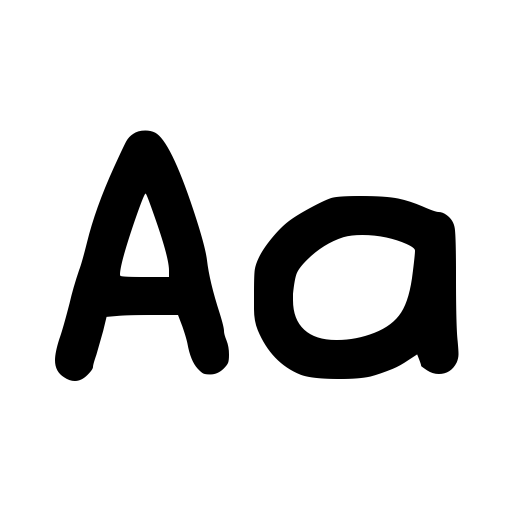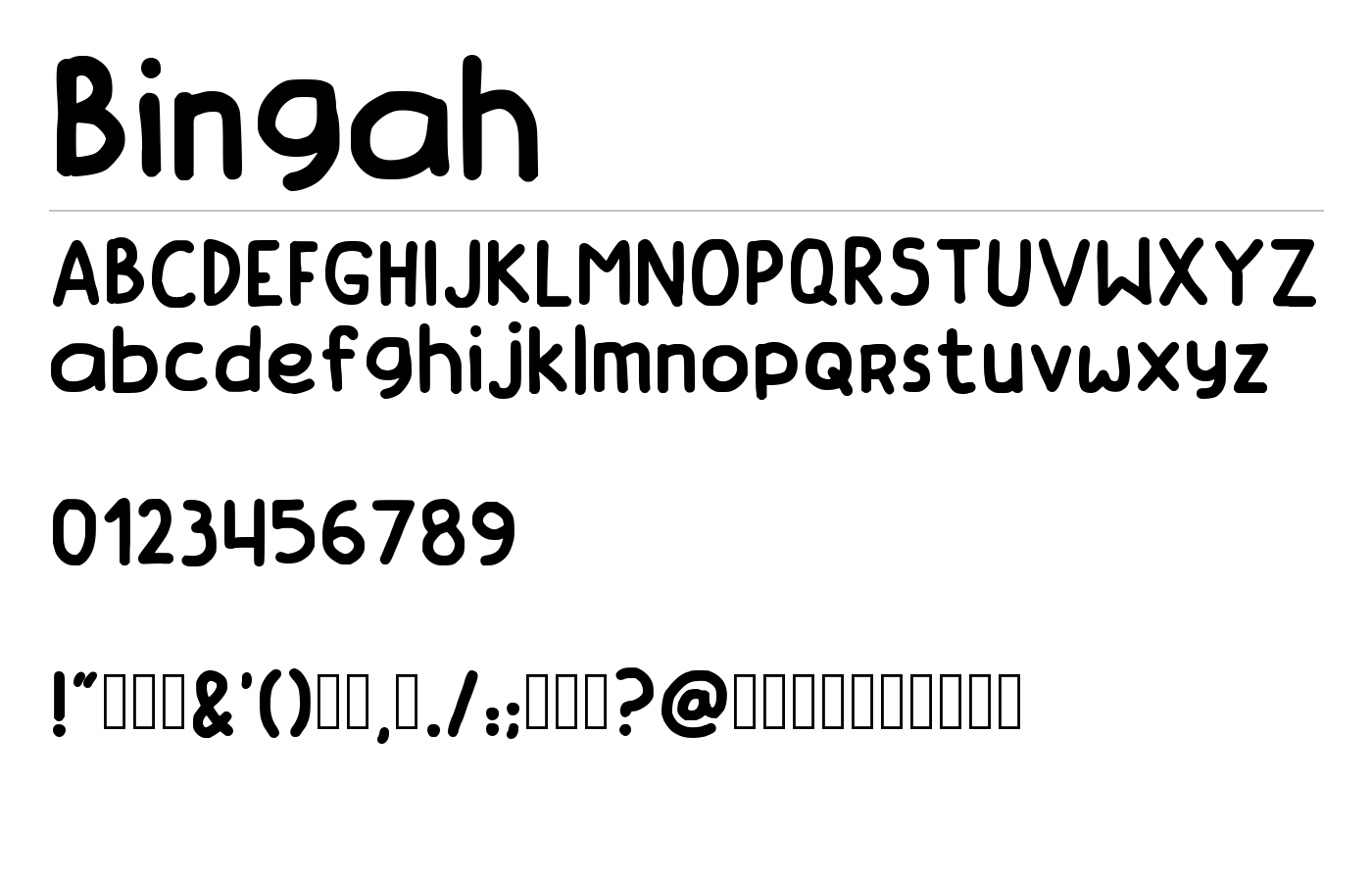
Bingah is a playful, rounded sans serif font with a casual, hand-drawn feel. Its uniform stroke weight and slightly irregular shapes give it a friendly and approachable personality, ideal for creative, informal designs. This font works well in children’s books, branding, and any project needing a warm, inviting touch.
Bingah Font
About Bingah Font